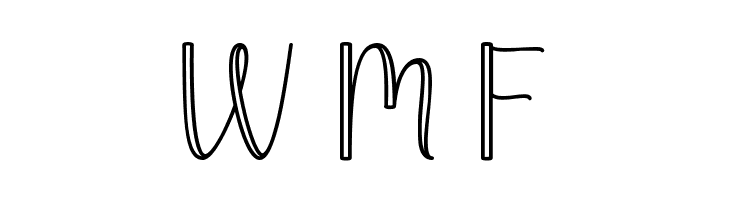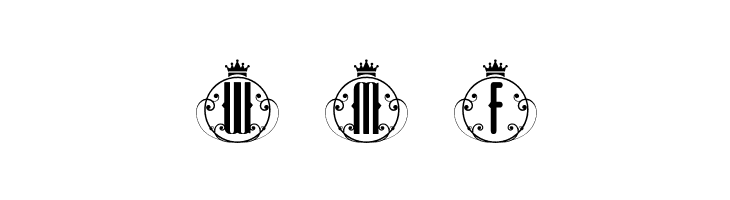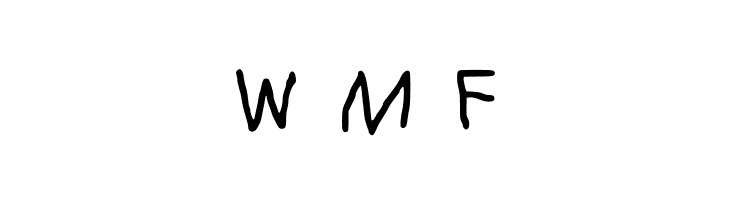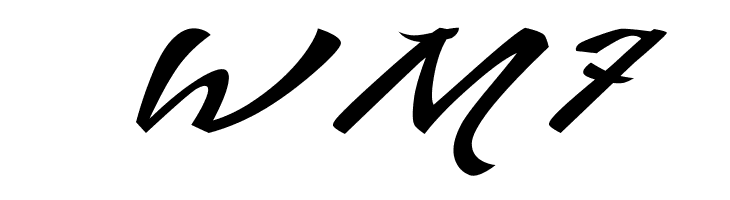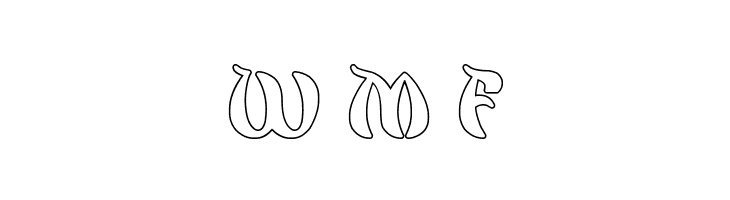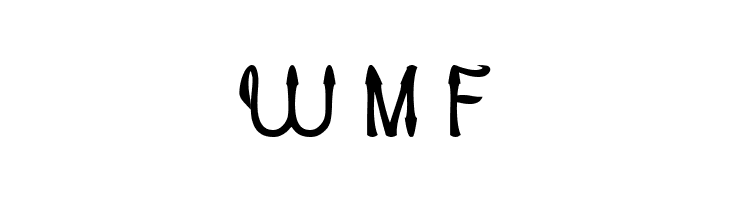
A bold, playful handwritten font with rounded, consistent strokes.
A playful, hand-drawn font with a whimsical and energetic style.
A playful, childlike handwritten font with irregular strokes and a whimsical style.
A playful, whimsical script font with a hand-drawn, elegant style.
A playful, rounded font with consistent stroke width and elegant curls.
A bold, elegant script font with flowing, cursive letterforms and a modern calligraphic style.
A decorative, hollow font with bold, curvy outlines and a playful style.
A bold, high-contrast font with a dynamic, serpentine style.
An ornate, regal font with crowned circular frames and intricate flourishes.
A bold, playful font with whimsical, rounded letterforms.